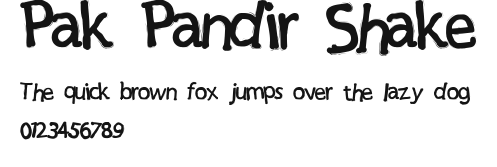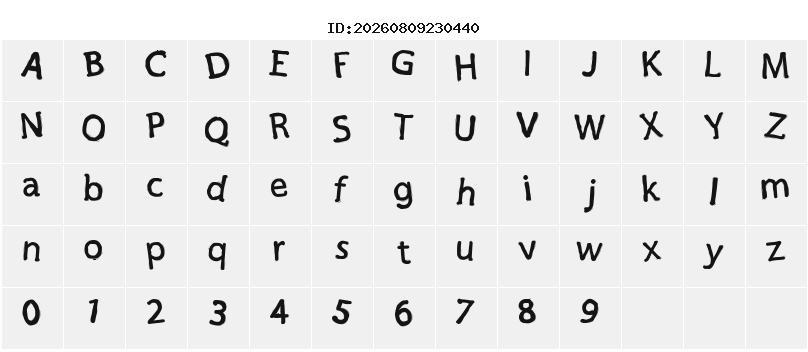
• Font Name: Pak Pandir Shake
• Designer: cenz qobbal
About Pak Pandir Shake.ttf
Pak Pandir Shake.ttf is a modern, elegant sans-serif font designed for ultimate readability and visual harmony. Perfect for branding, headlines, web design, and print materials.